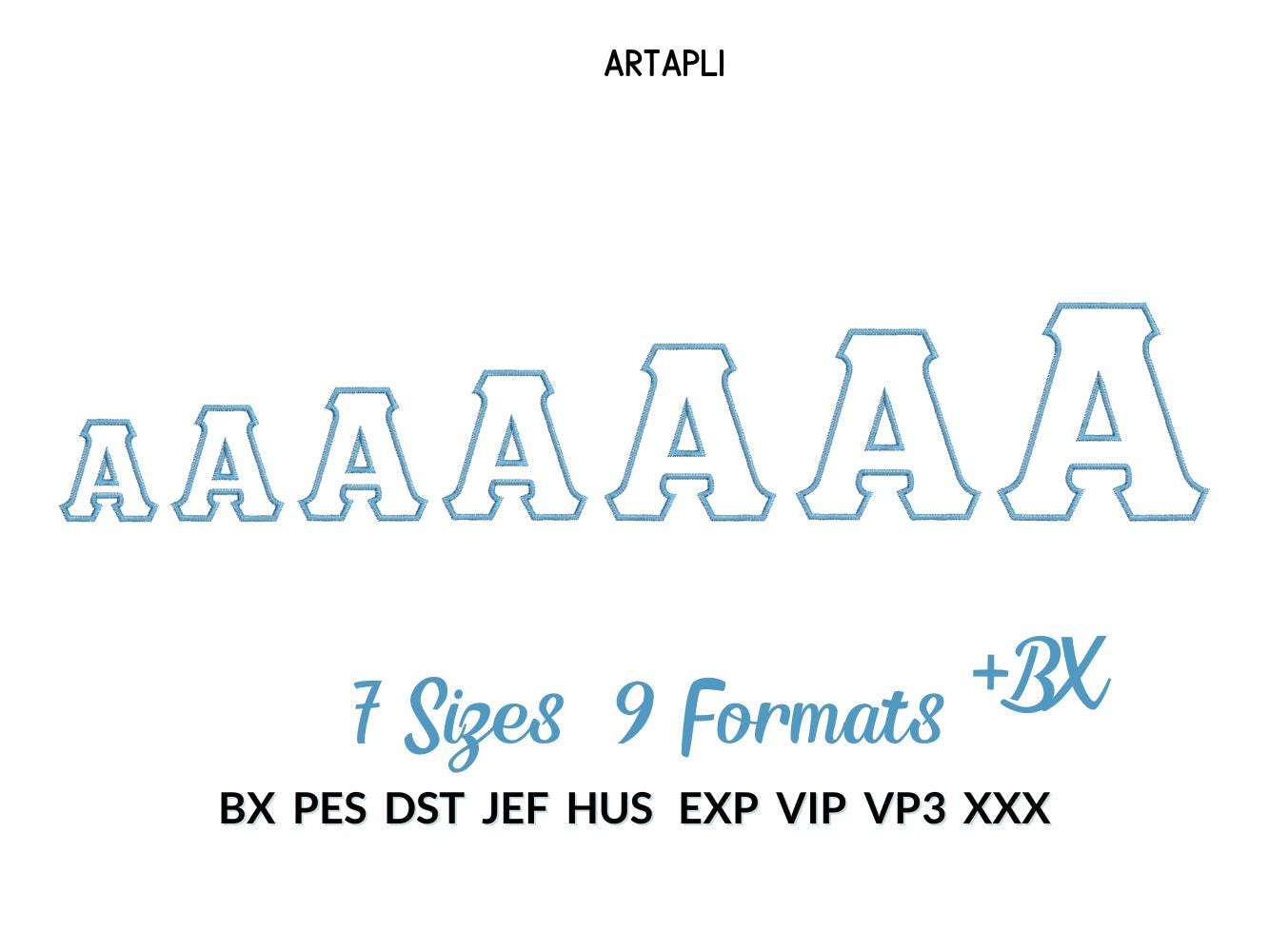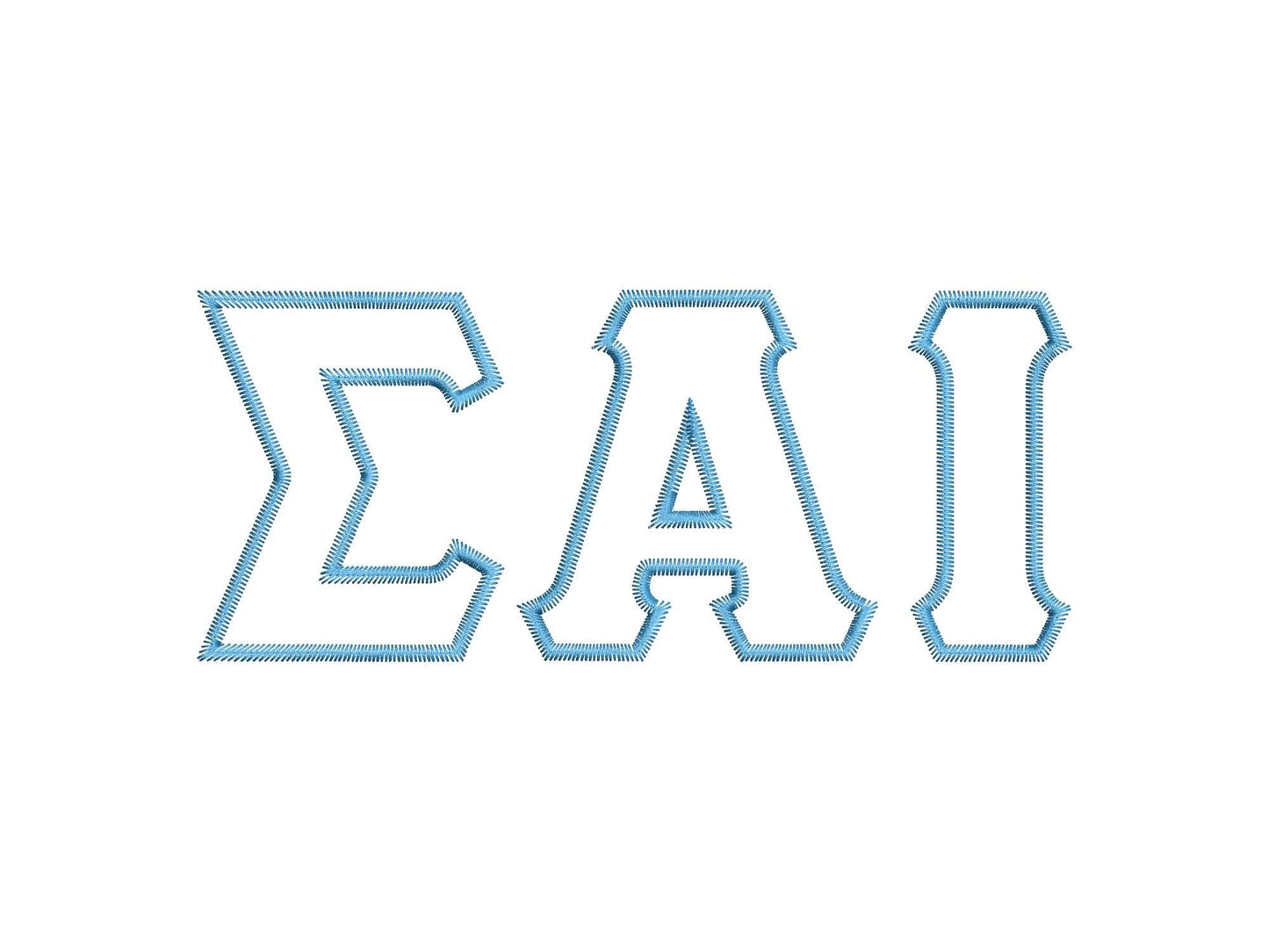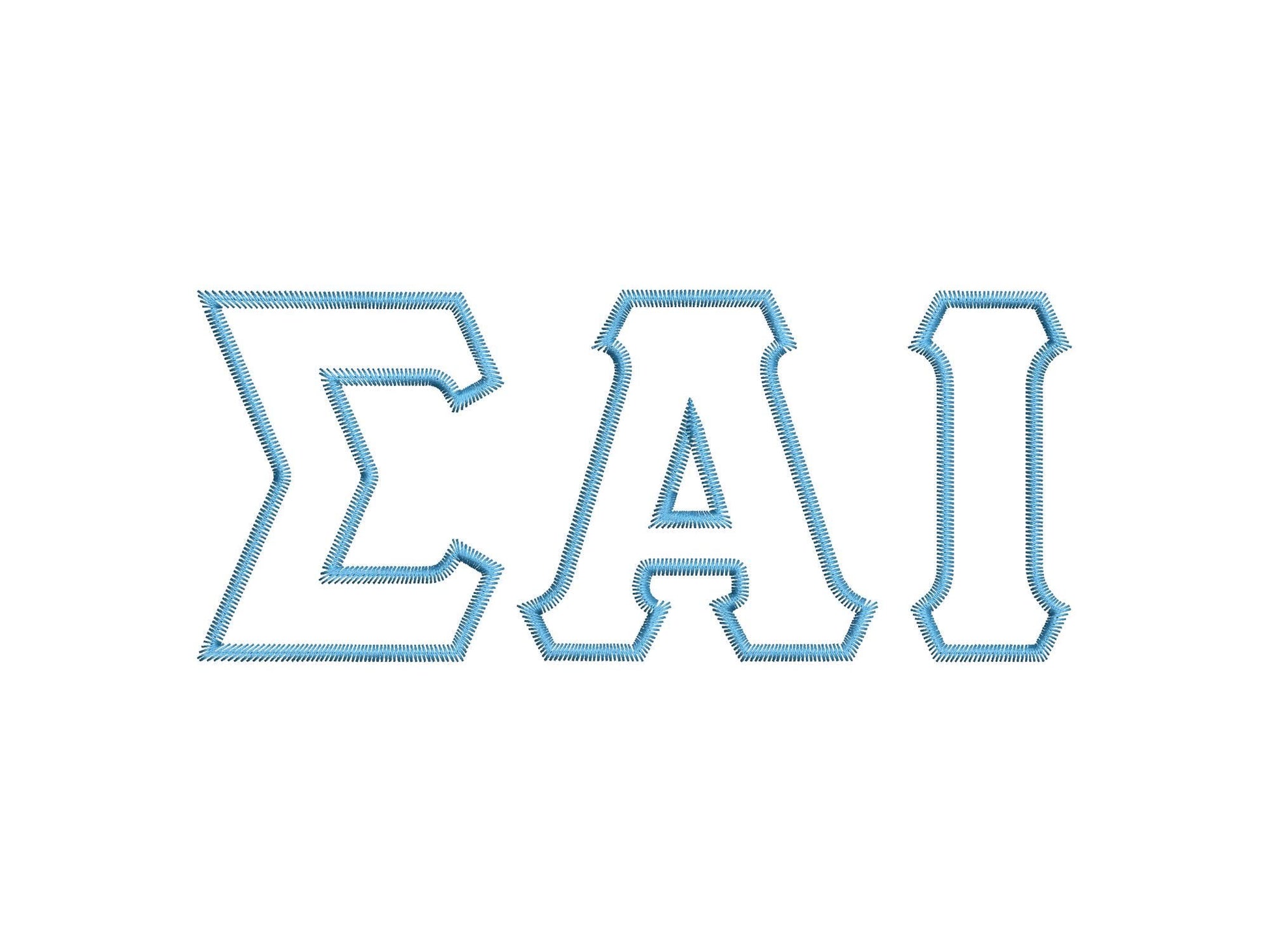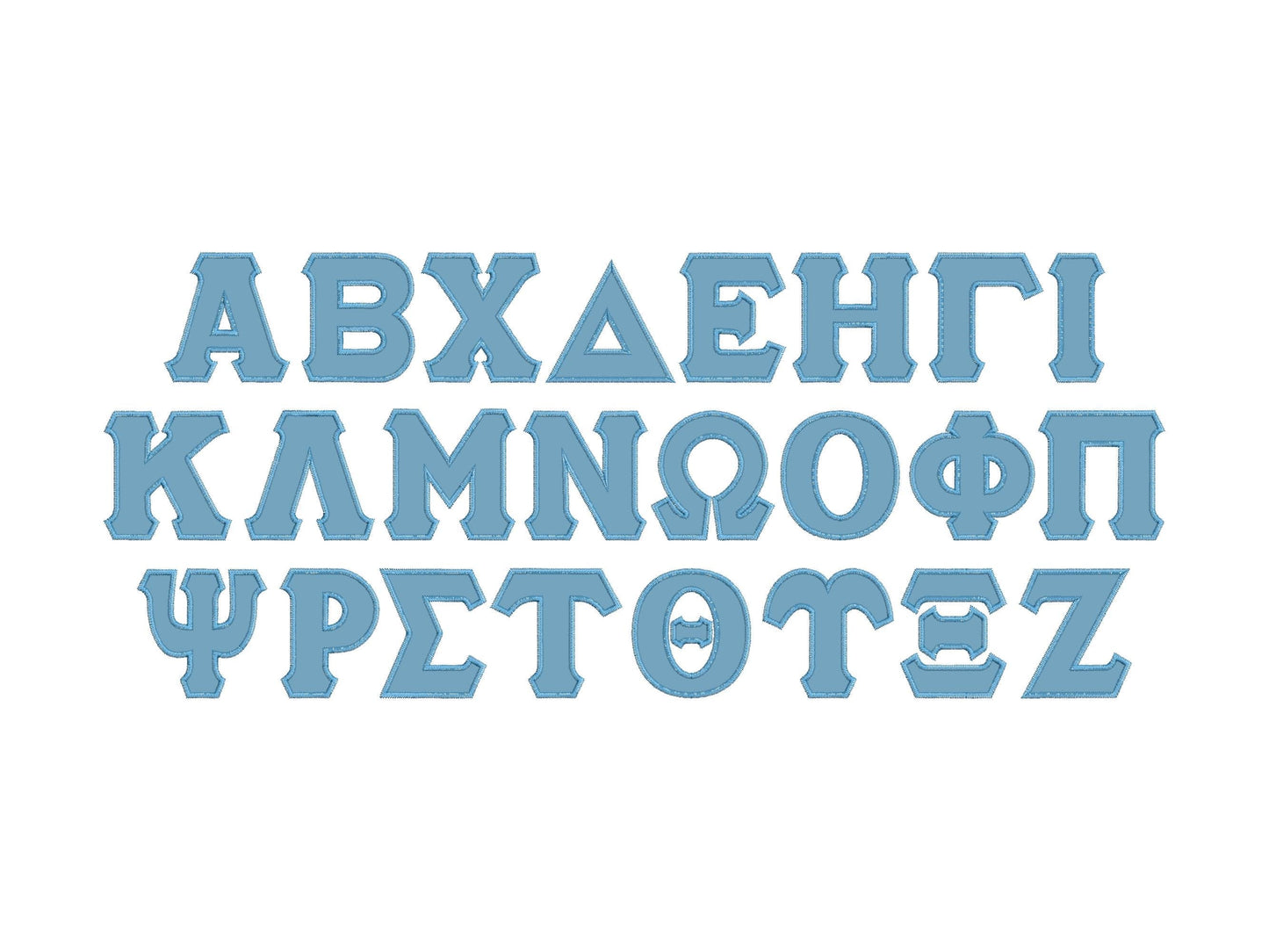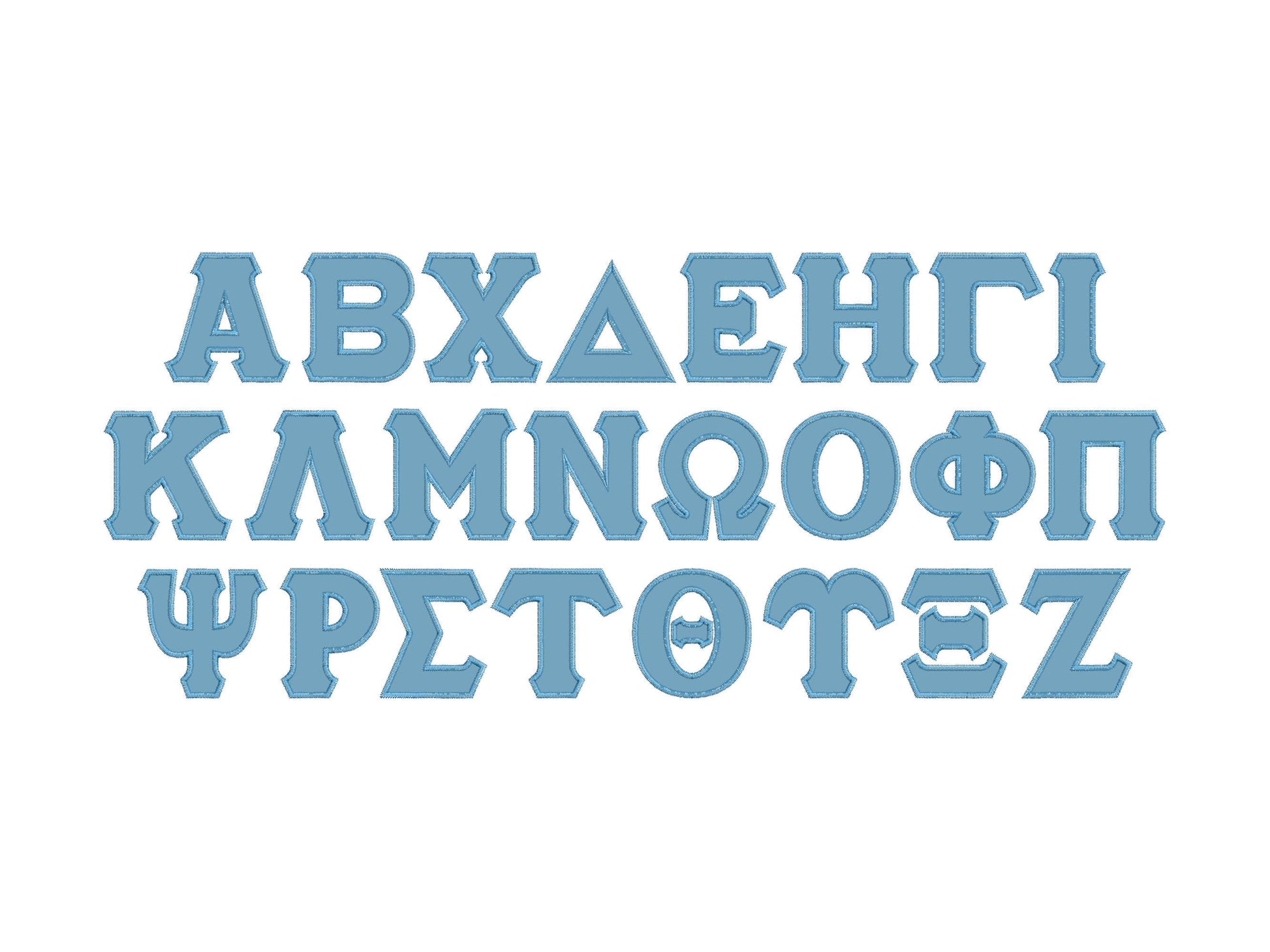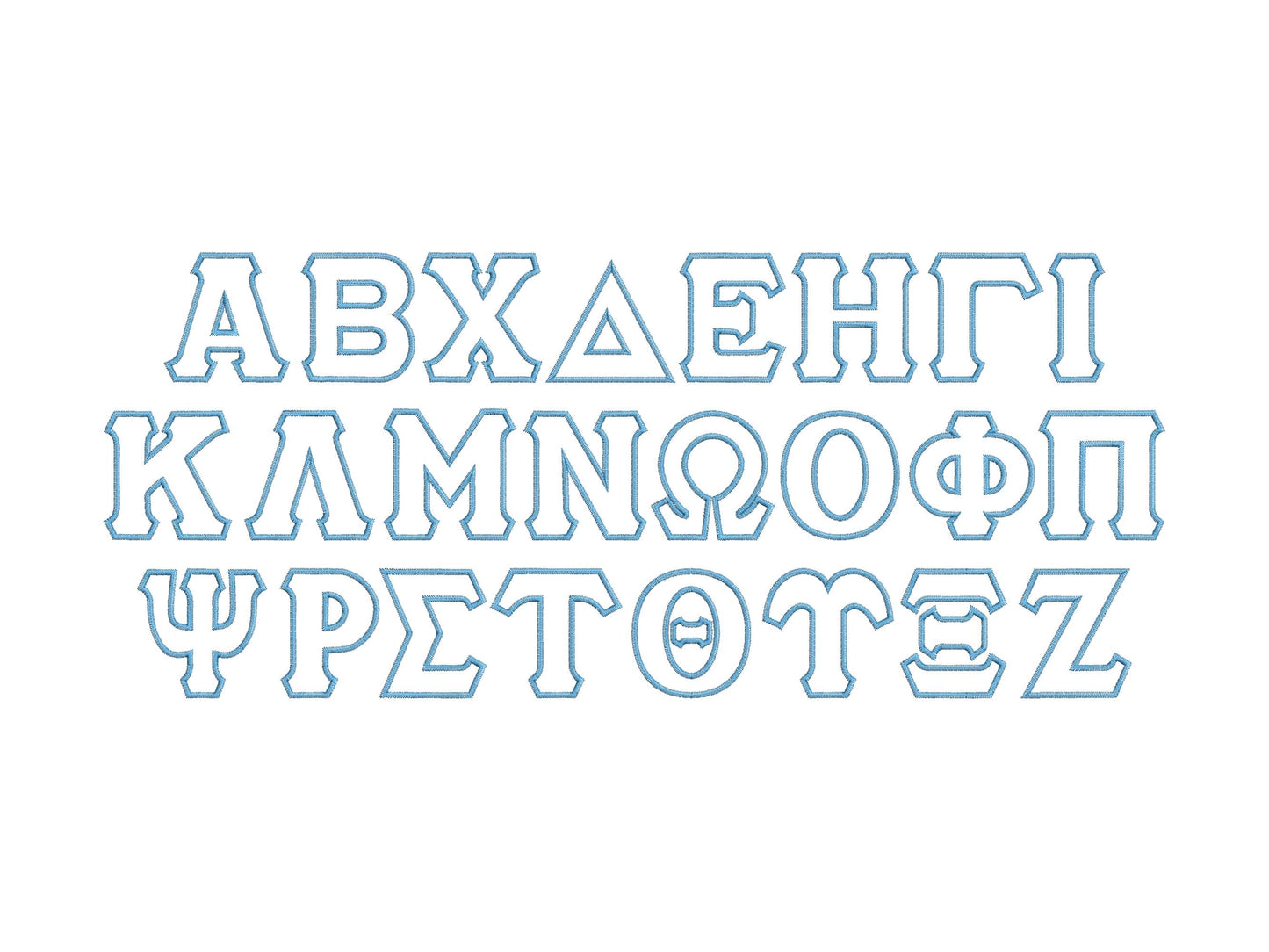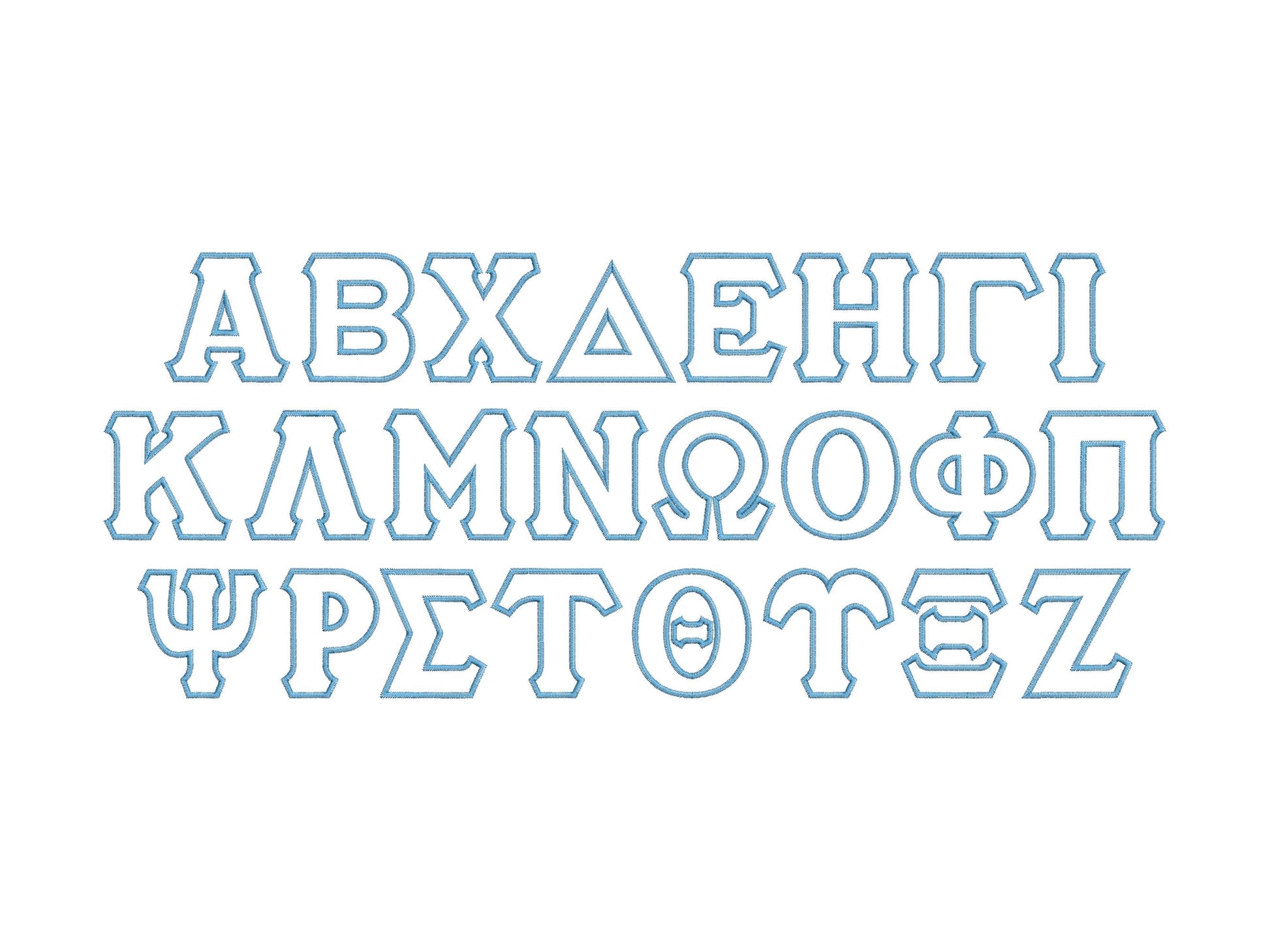
Large Zig Zag Outline Greek Font Applique
Large Greek letters as simple applique with a zigzag finish. Quick and easy for sorority and fraternity shirts, sweatshirts and bags.
All 24 Greek letters in seven sizes: 2.6, 3, 3.5, 4, 4.6, 5 and 5.6 inches. Simple applique with a zigzag edge.
• 24 Greek letters, zigzag applique
• 7 sizes, 2.6 to 5.6 in